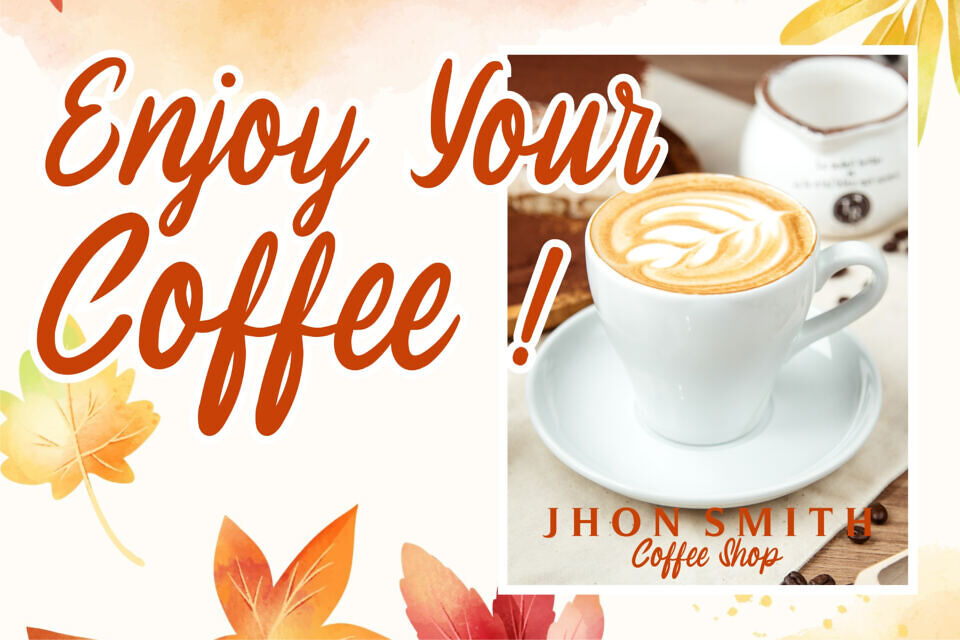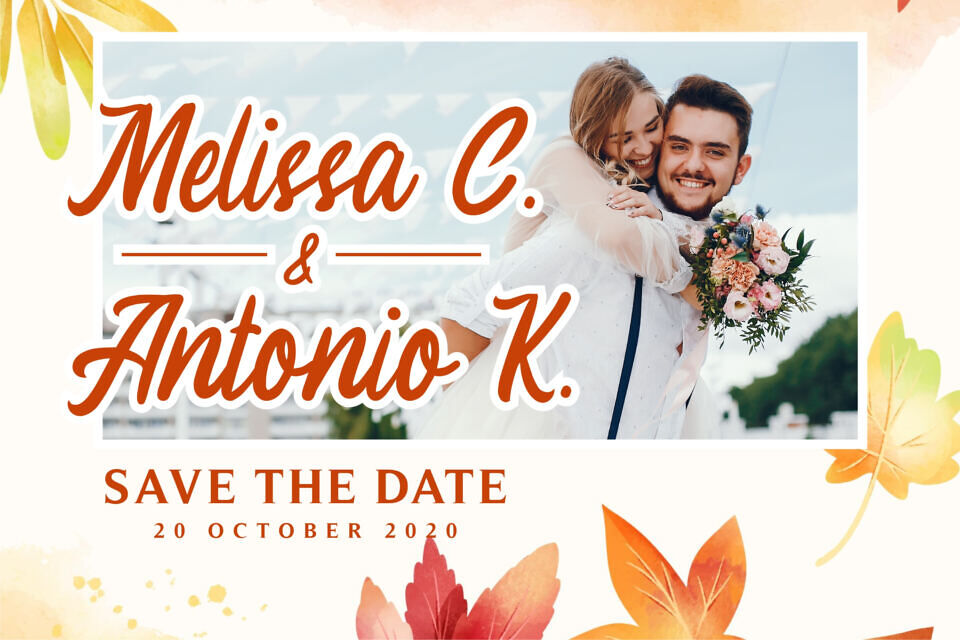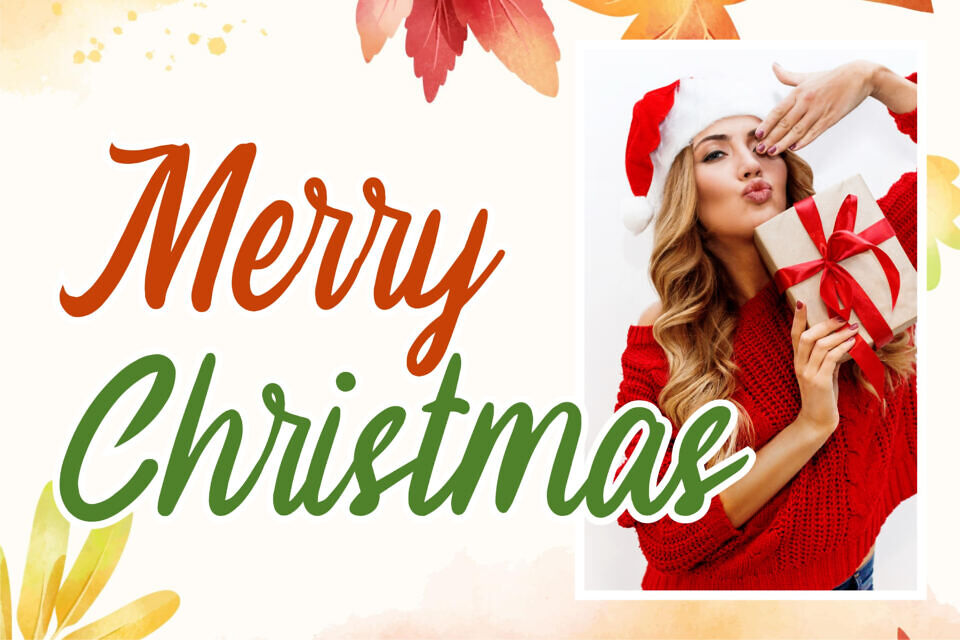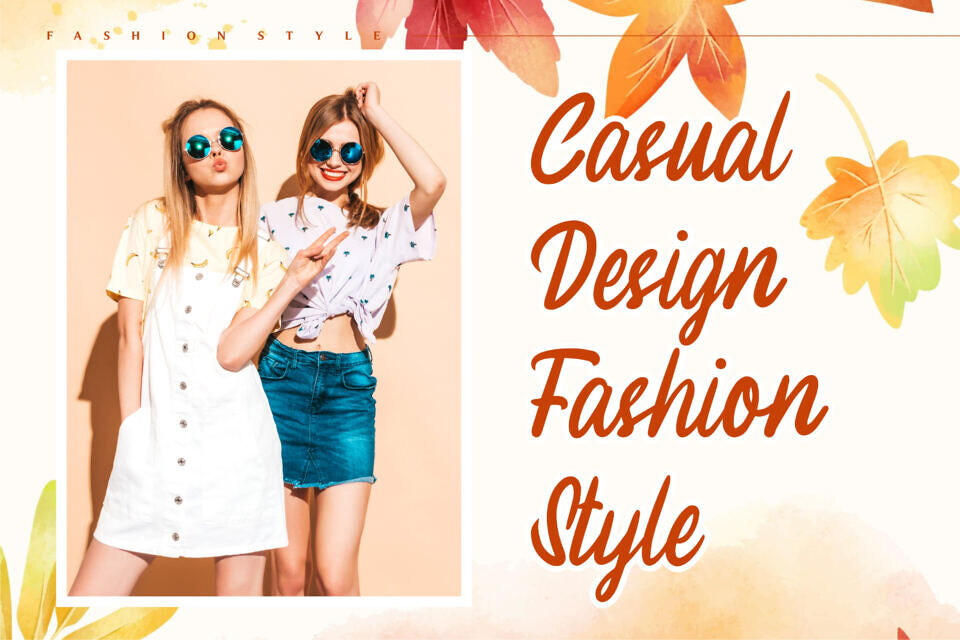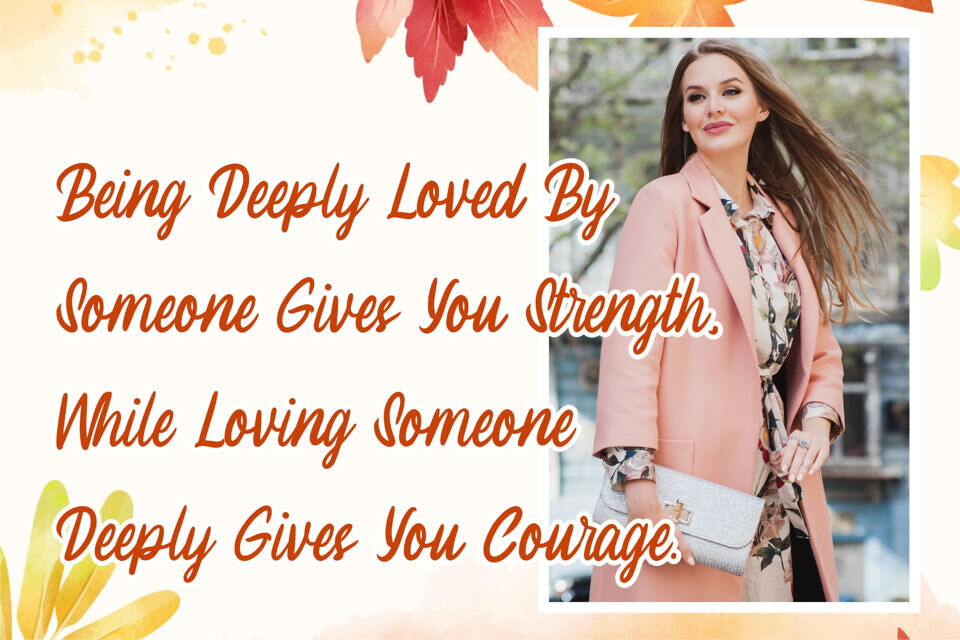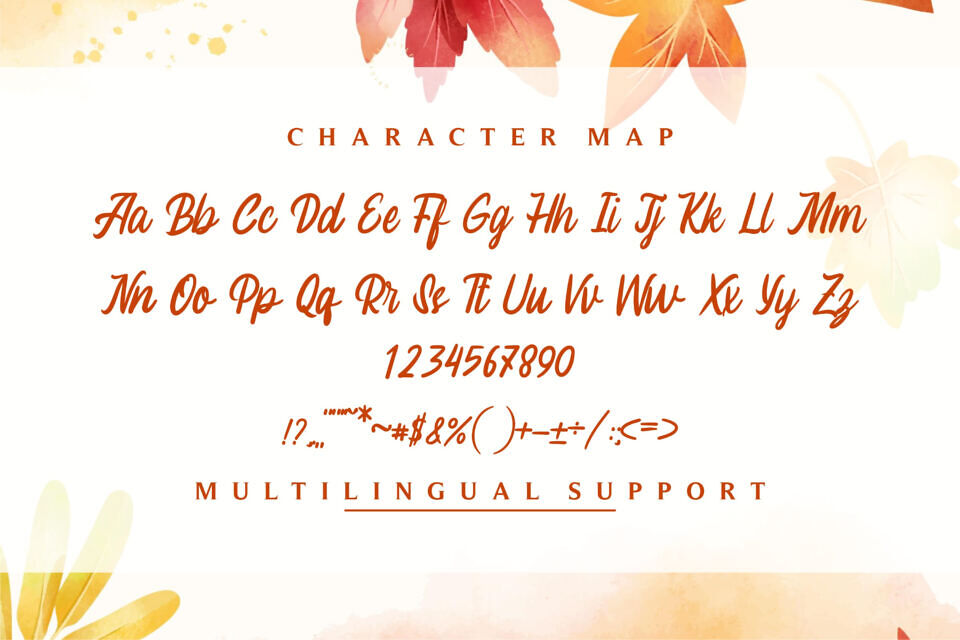
Melissa is an assertive handwritten font, created with the help of a beautiful paint brush. Whether you’re using it for crafting, digital designing, presentations or greeting cards making, it’s perfect!